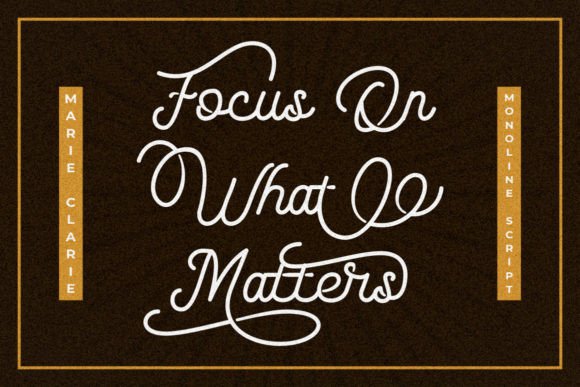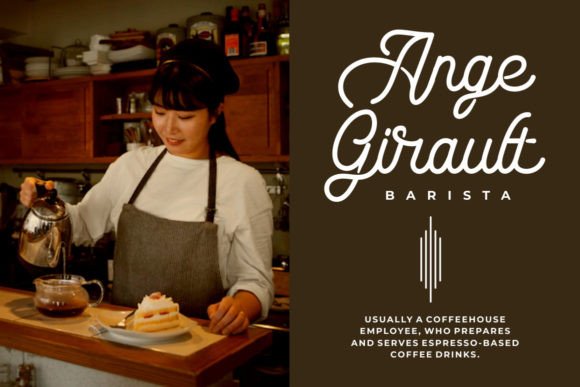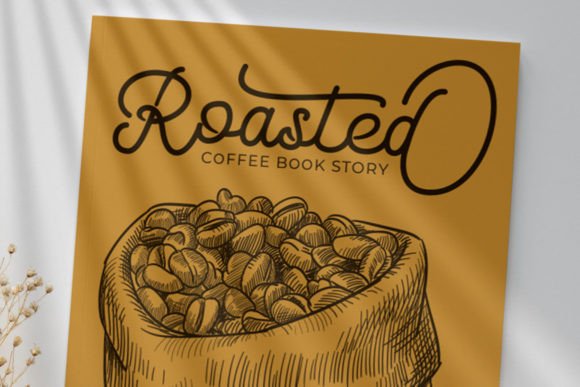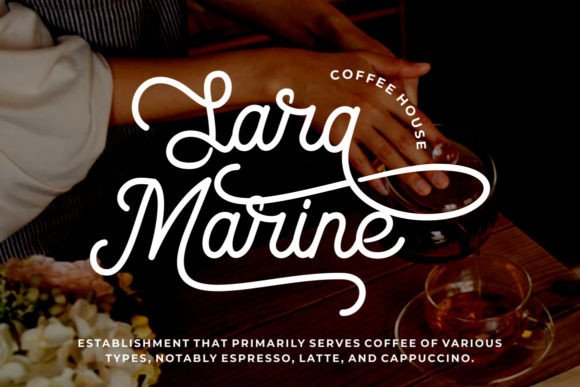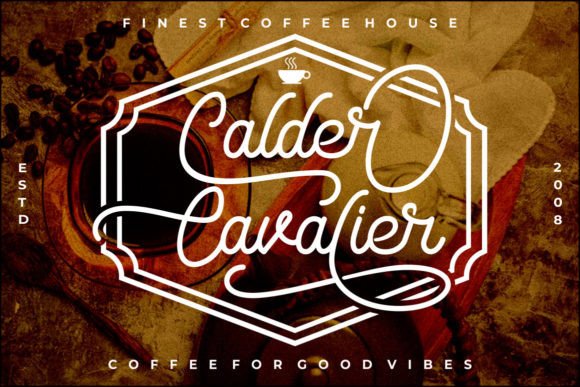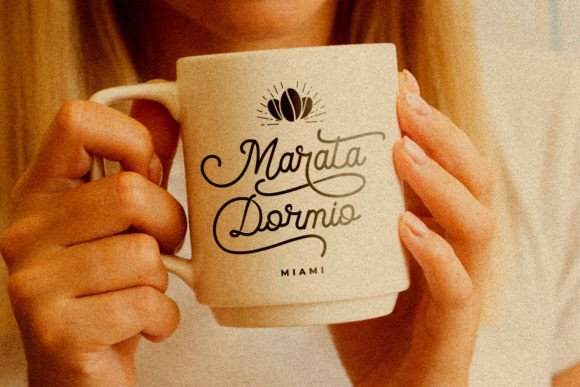
Introduction to Marie Clarie Font Font
Fonts play a crucial role in design, and the Marie Clarie Font font is a typeface that brings both character and versatility to any project. Whether you’re working on a branding project, a website, or a print design, the Marie Clarie Font font offers a unique style that can elevate your work.
Marie Clarie β Monoline Script Font is a stunning font with a script style characterized by thin monoline strokes.
Its vintage retro charm and classic script lettering make it a perfect choice for various design applications Whether youβre creating logos, lettering, branding materials, coffee-related designs, food and beverage branding, invitations, or cards, this font will add a touch of elegance and sophistication to your projects.
Key Features of Marie Clarie Font Font
Why Choose Marie Clarie Font Font?
The Marie Clarie Font font is more than just a typeface β it’s a design tool that helps you communicate your message with style and clarity. Its unique character set and versatile design make it suitable for a wide range of applications, from elegant invitations to bold headlines.
With its carefully crafted letterforms and balanced proportions, the Marie Clarie Font font ensures readability and visual appeal across all mediums.
What makes Marie Clarie Font font special?
The Marie Clarie Font font stands out with its unique design, exceptional readability, and versatility across various design applications.